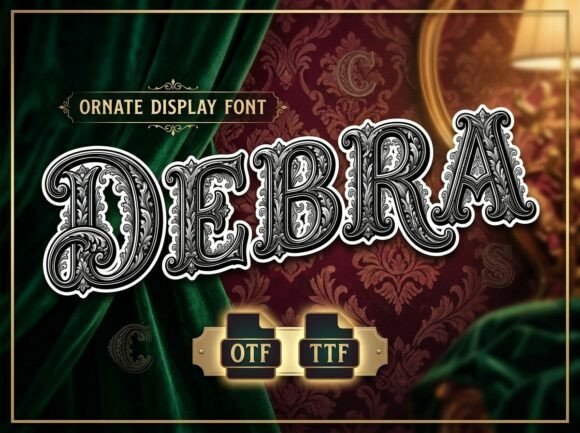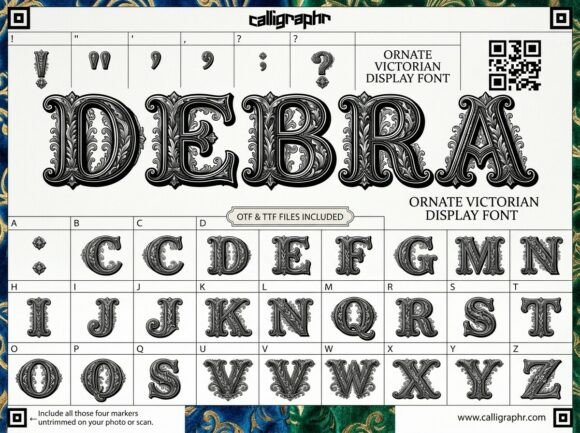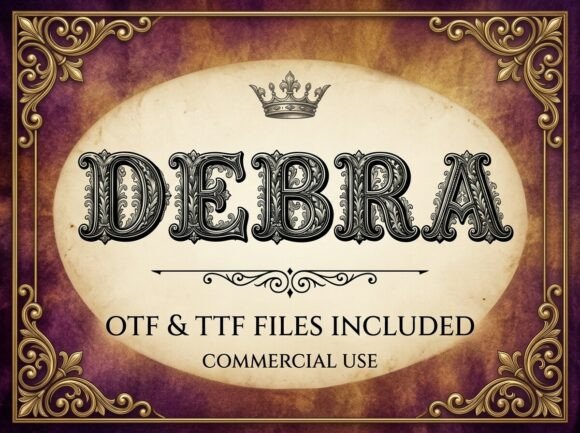
Unleash Your Creativity with the Stunning Debra Font
Have you ever stared at a blank page, searching for the perfect font to bring your creative vision to life? You know, that moment when everything else fades away, and all that’s left is the blank canvas waiting to be filled with your artistic expression. For those moments, you need a font that can speak for itself – a font that’s bold, eye-catching, and uniquely yours. That’s where Debra Font comes in – a stunning decorative display font designed to be the center of attention.
Whether you’re a seasoned designer or a creative entrepreneur, Debra Font is the perfect addition to your toolkit. Its unique artistic elements and strong visual personality make it versatile enough for bold headlines, artistic logos, and creative packaging. With Debra Font, you can create high-impact designs that stand out from the crowd and leave a lasting impression.
Debra Font Key Features
- Unique Characteristic: Known for its elegant and refined style, with a focus on readability
Debra Font Review
Overall, I was pleasantly surprised by the Debra Font. Its unique blend of classic and modern elements made it a joy to work with. ✨ Here are a few things that stood out to me:
- Legibility: The font is incredibly easy to read, even at smaller sizes.
- Style: The Debra Font’s classic feel is tempered by modern touches, making it a great choice for projects that need a touch of sophistication.
- Customization: The font is highly customizable, with a wide range of weights and styles to choose from.
However, like any font, the Debra Font isn’t perfect. ✠ Some limitations I encountered include:
- Lack of Italic Variants: While the font has a wide range of weights, it’s missing italic variants, which can make it difficult to use in certain situations.
- Limited Kerning: In some cases, the font’s kerning can be a bit off, leading to awkward spacing between letters.
Overall, I would highly recommend the Debra Font for projects that require a touch of classic elegance. While it’s not without its limitations, the font’s strengths far outweigh its weaknesses.
Getting the Most Out of Debra Font
Use Debra Font for titles, headings, and body text to create a consistent and professional look.
Experiment with different font sizes and styles to add visual interest to your designs.
Pair Debra Font with other fonts to create a unique and eye-catching typography.
Use Debra Font for:
• Creative projects (e.g. invitations, flyers, posters)
• Branding materials (e.g. logos, business cards, letterheads)
• Digital media (e.g. social media graphics, presentations, documents)
Alternatives to Debra Font for Designers
Open Sans is a popular sans-serif font that is highly legible and suitable for digital interfaces. It’s a great alternative to Debra Font for modern and clean designs. When to use: For digital products, websites, and applications where clarity and readability are essential.
Comparison: Debra Font has a more elegant and classic feel, while Open Sans is more modern and versatile.
Lato is a sans-serif font that offers a unique blend of modernity and elegance. It’s perfect for designs that require a touch of sophistication and refinement. When to use: For luxury brands, high-end products, and designs that need a sense of exclusivity.
Comparison: Lato has a more refined and polished feel compared to Debra Font, which has a more classic and traditional feel.
Montserrat is a sans-serif font that originated from a sign in Montserrat, Argentina. It’s highly legible and versatile, making it suitable for a wide range of designs. When to use: For urban, industrial, or modern designs that require a strong and edgy feel.